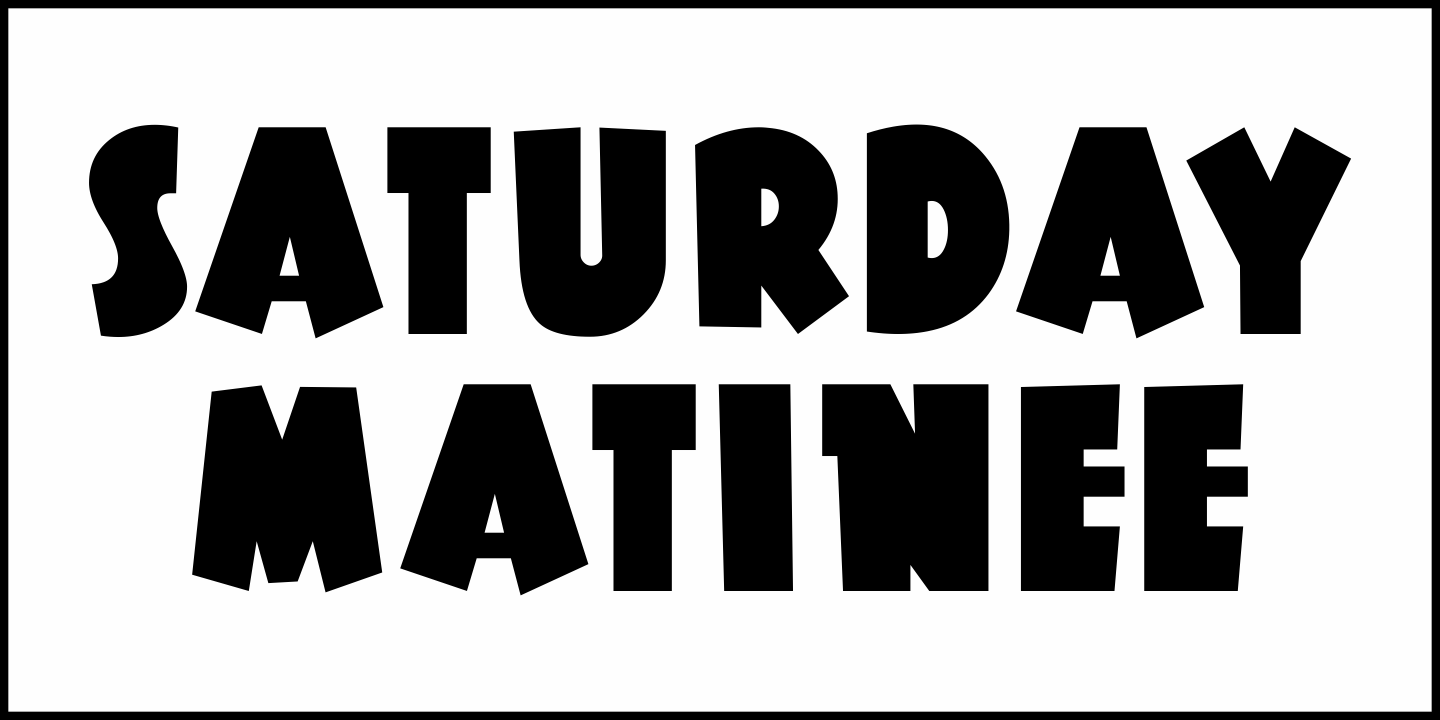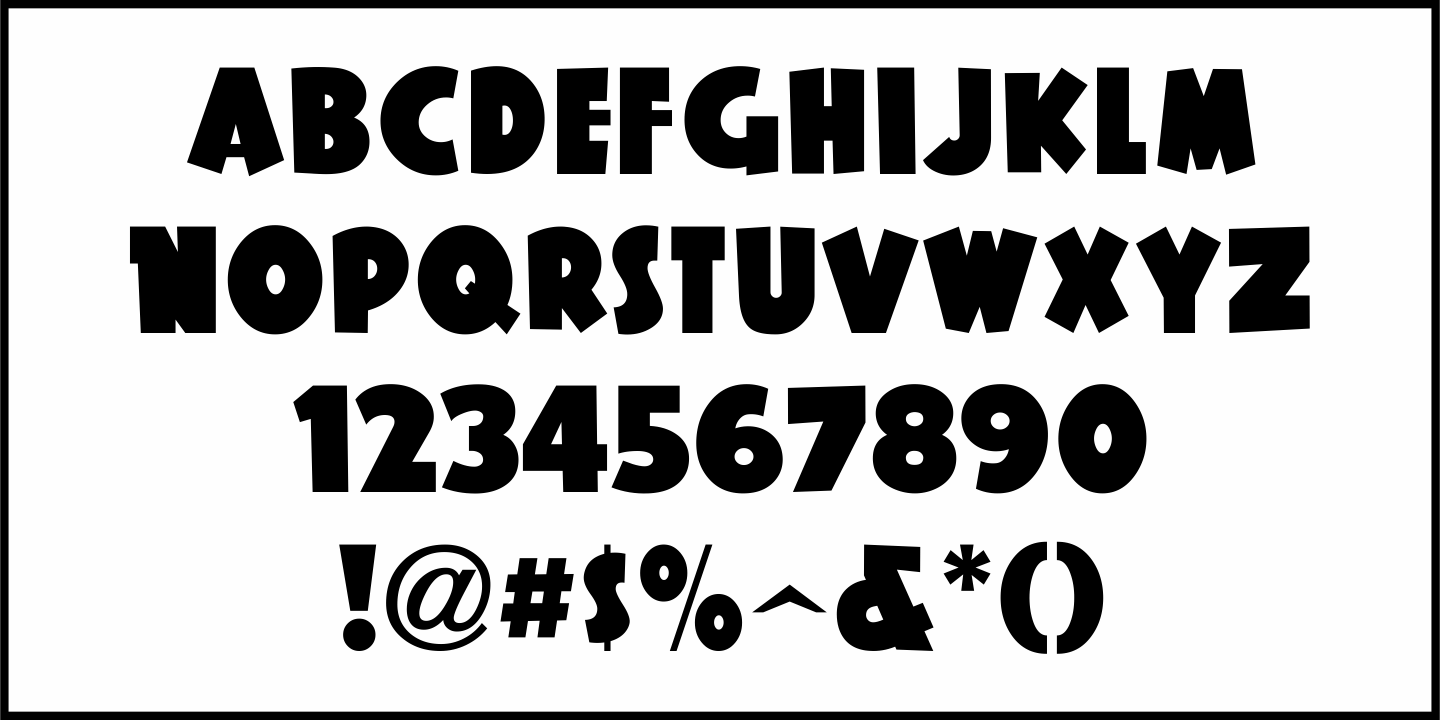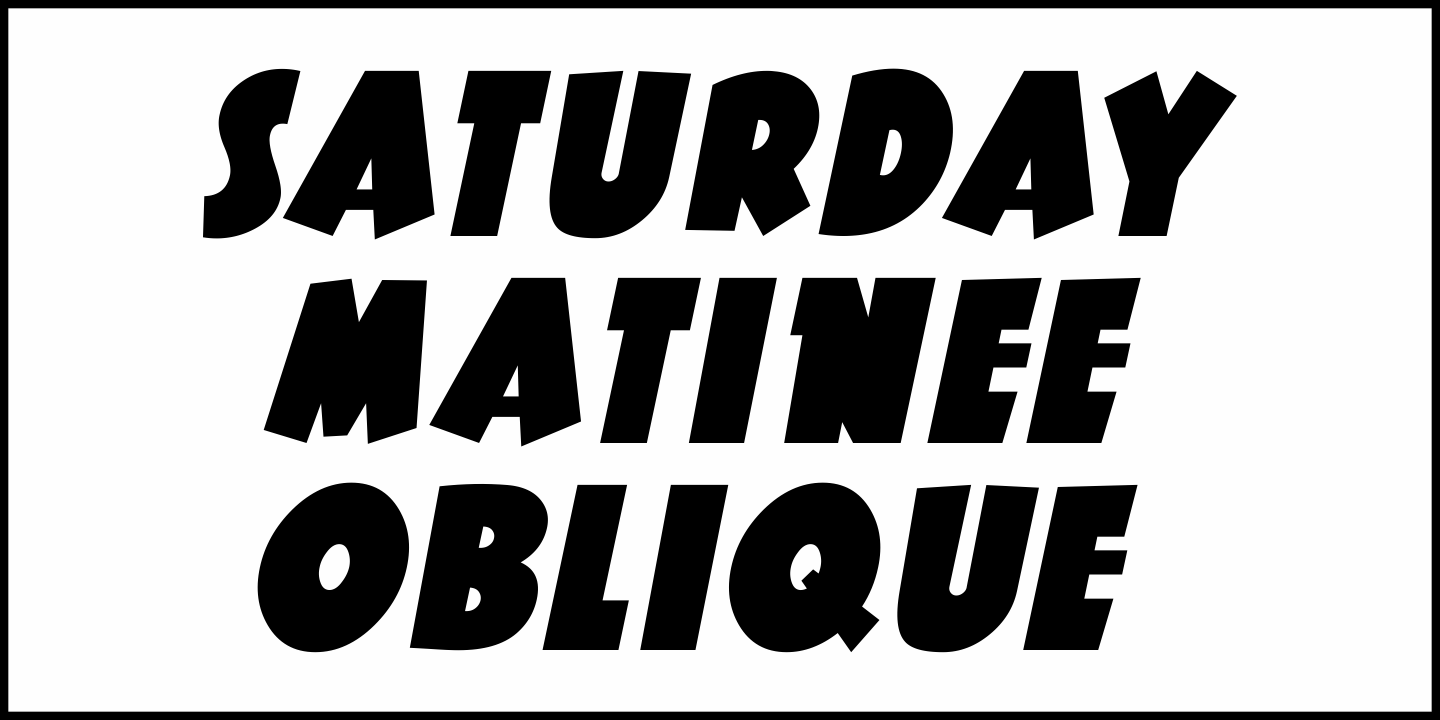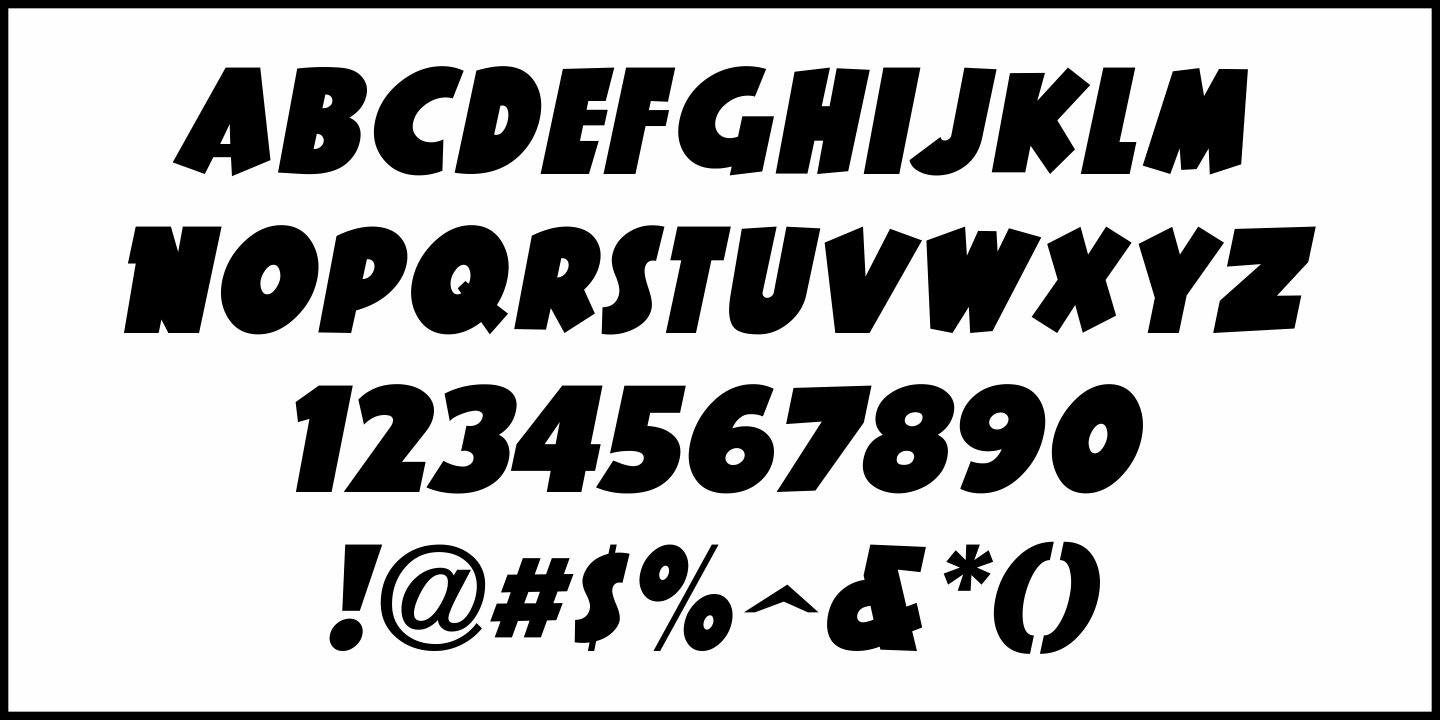
Saturday Matinee
Here's a bold and playful sans serif type design from hand lettering found in an ad promoting various releases from RKO pictures.  The ad originally appeared in the June 25, 1937 issue of The Film Daily.
It's now available as Saturday Matinee in both regular and oblique versions.